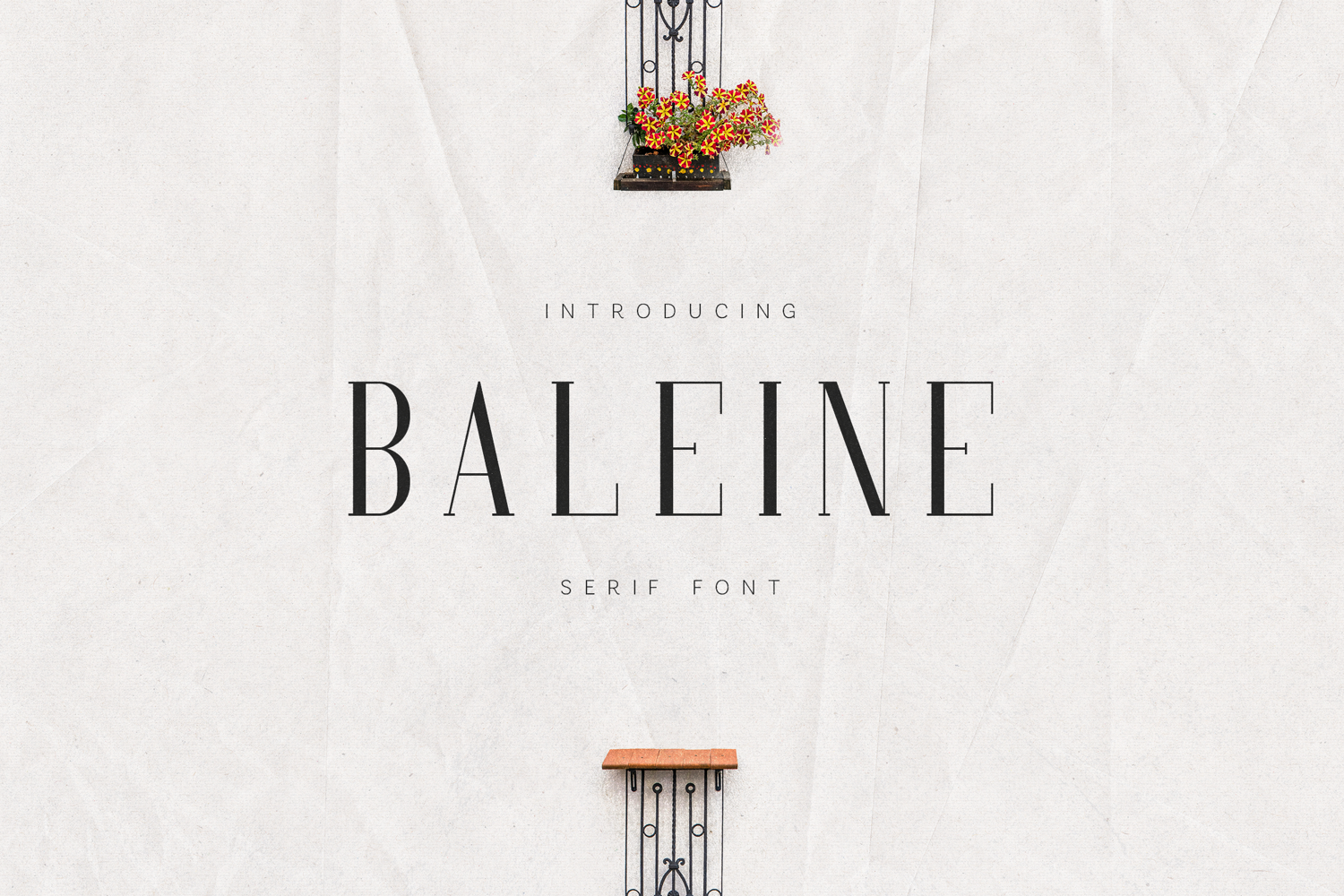
Baleine Elegant Modern Serif Font
Baleine is an elegant modern serif font designed with clarity, balance, and refined simplicity. Featuring clean letterforms, graceful contrast, and well-proportioned strokes, Baleine delivers a calm, confident typographic voice that feels timeless yet contemporary.
Ideal for editorial design, magazines, branding, book covers, posters, packaging, and sophisticated layouts, Baleine excels where elegance and readability go hand in hand. Its structured forms and subtle details create a premium look without feeling ornamental or heavy.
Baleine performs beautifully in both headlines and short body text, making it a versatile serif for modern design systems. It pairs naturally with minimalist sans serifs, allowing designers to build refined, editorial-driven compositions with ease.
The font includes uppercase and lowercase letters, numerals, punctuation, symbols, and extensive multilingual support, making it suitable for professional and international use.
If you’re looking for a serif font that feels elegant, modern, and quietly confident, Baleine offers refined typography with lasting versatility.